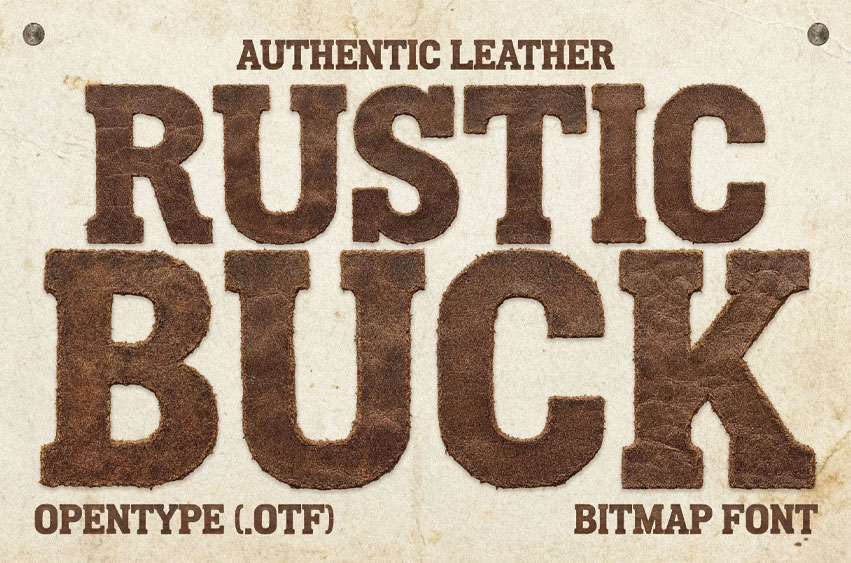
Rustic Buck Font
Rustic Buck Font is a bold display font made from genuine leather, giving every letter a rugged, tactile, and handcrafted feel. With its worn edges, cracked grain, and natural texture variations, this font captures the essence of vintage craftsmanship—perfect for designs that need authenticity and grit.
• Western-themed products
• Handmade goods & artisan brands
• Cowboy-themed parties
• Ranch + farm events
• Music festival posters (country / folk / Americana)
• Leather goods promotions